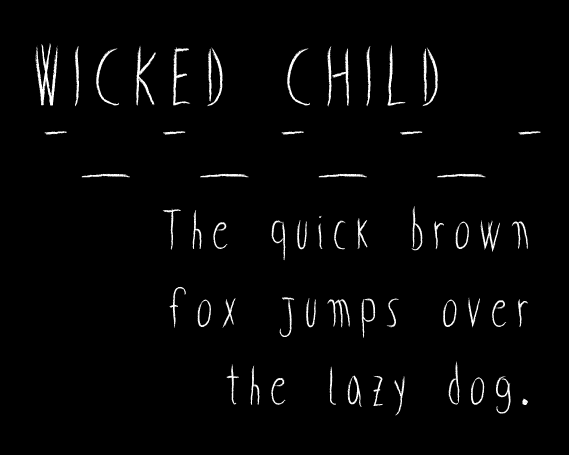
Preview and download Wicked child Font. Created by Marco Ballarè in Script Handwritten styles with 100% Free license.
Font name: | Wicked child |
Author: | Marco Ballarè |
Note by Marco Ballarè | |
Wicked Child - A hand designed, creepy font! 100% free, use it as you like! |